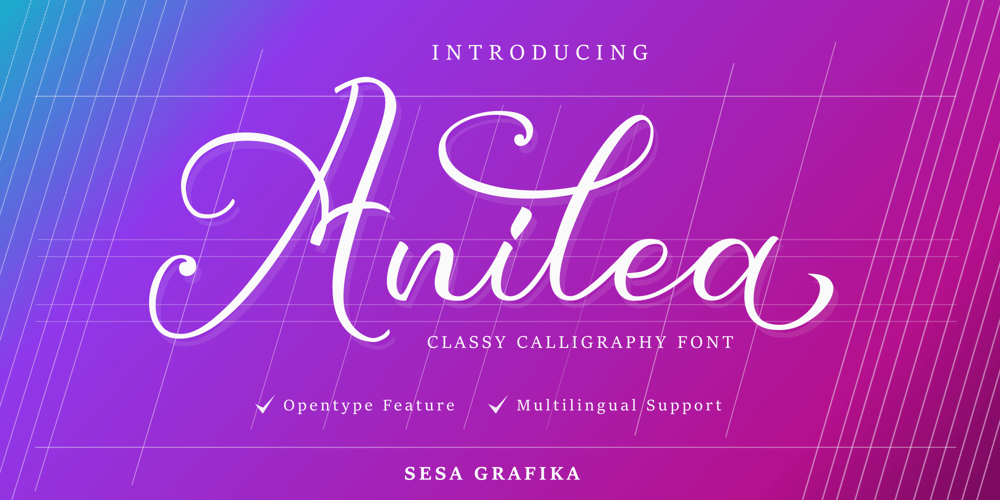
Anilea Script
Anilea Script font
Anilea Script Font Family was designed by Wisesa Purba Giandar and published by Sesa Grafika. Anilea Script contains 1 styles and family package options. Anilea Script is a delicate, elegant, and flowing handwritten font perfect for your favorite projects. Fall in love with its incredibly distinct and timeless style, and use it to create spectacular designs!Elevate your wedding and branding projects with the enchanting “Anilea Script Font.” This script font seamlessly blends elegance and romance, making it the perfect choice for wedding invitations, heartfelt messages, and distinctive logo branding.Whether you’re crafting a wedding masterpiece or building a brand that speaks volumes about love and connection, the Anilea Script Font is your artistic. Imbue your projects with the essence of romance and refinement—choose Anilea Script Font for a truly captivating design experience!